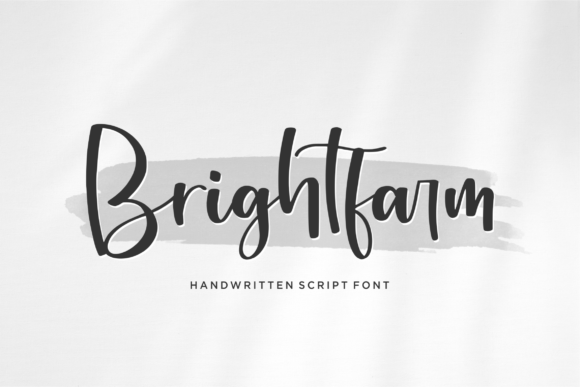
Introducing Brightfarm: The Perfect Handwritten Script Font for Creative Projects
Are you a designer, crafter, or DIY enthusiast looking for a unique and eye-catching font to elevate your creative projects? Look no further than Brightfarm, a beautiful handwritten script font that’s perfect for a wide range of applications. From product packaging and branding projects to magazines, social media, weddings, and more, Brightfarm is the ideal choice for anyone seeking to add a touch of personality and whimsy to their designs.
What Makes Brightfarm Special?
Brightfarm is a carefully crafted handwritten script font that’s designed to bring a sense of warmth and approachability to your designs. Its flowing, connected letters and subtle imperfections give it a distinctly human feel that’s perfect for creating a personal connection with your audience. Whether you’re looking to create a bold statement or a soft, romantic look, Brightfarm is the perfect tool for the job.
Key Features of Brightfarm
- Handwritten script font: Brightfarm is a genuine handwritten script font, carefully crafted to capture the nuances and imperfections of human handwriting.
- Unique character set: With a wide range of characters, including uppercase and lowercase letters, numbers, and punctuation marks, Brightfarm has everything you need to create beautiful, cohesive designs.
- Perfect for creative projects: Brightfarm is ideal for a wide range of creative projects, from product packaging and branding to magazines, social media, weddings, and more.
- Easily customizable: With its clear, legible design, Brightfarm is easy to customize to suit your specific needs and preferences.
Use Brightfarm for:
- Product packaging: Add a personal touch to your product packaging with Brightfarm’s unique, handwritten script.
- Branding projects: Create a cohesive brand identity with Brightfarm’s consistent, recognizable style.
- Magazines and publications: Add a touch of elegance and sophistication to your magazine or publication with Brightfarm’s flowing script.
- Social media: Stand out on social media with Brightfarm’s eye-catching, highly customizable design.
- Weddings and events: Create beautiful, one-of-a-kind wedding invitations, programs, and other event materials with Brightfarm.
Why Choose Brightfarm?
With so many fonts to choose from, why should you choose Brightfarm? Here are just a few reasons:
- Unique and eye-catching: Brightfarm is a truly unique and eye-catching font that will help your designs stand out from the crowd.
- Highly versatile: With its wide range of characters and easily customizable design, Brightfarm is perfect for a wide range of creative projects.
Get Creative with Brightfarm Today!